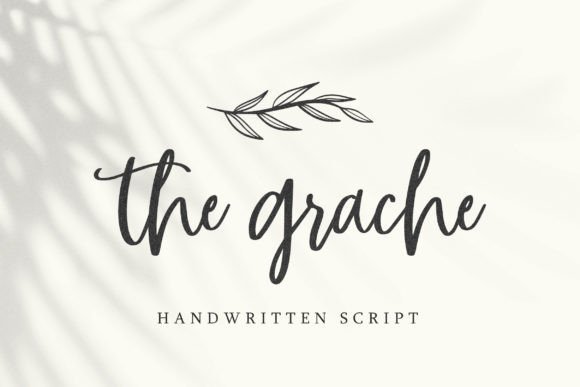
Introducing The Grache Font, the epitome of style and elegance in the world of script fonts! Created by the renowned Bellinghamtype, this font is a true masterpiece that is bound to captivate your senses and elevate your designs to new heights.
Are you looking for the perfect font to grace your wedding invitations? Look no further! The Grache Font is specifically designed to add an exquisite handwritten touch to your wedding stationery. Its delicate strokes and graceful curves will leave a lasting impression on your guests, setting the tone for your special day.
But that's not all - this font is a versatile gem that can be used in a myriad of design projects. Whether you're crafting thank you cards, inspirational quotes, or greeting cards, The Grache Font will infuse your creations with a sense of sophistication and charm. Its authentic handwritten appearance brings a personal touch to every word, making your message resonate with your audience on a deeper level.
Logos and business cards are vital components of any branding strategy, and The Grache Font is here to take your brand to a whole new level. With its timeless appeal, this font adds a touch of elegance that will make your brand stand out from the crowd. It exudes professionalism and creativity, instantly grabbing attention and leaving a lasting impression on potential clients.
The Grache Font is not just a font - it's an experience. Its smooth curves and flowing lines evoke a sense of emotion and beauty, creating a harmonious visual journey for anyone who lays eyes on it. It sparks inspiration and creativity, allowing you to unleash your imagination and bring your design visions to life.
Don't settle for ordinary fonts when you can have extraordinary. The Grache Font is a must-have for designers and creatives who seek to make a statement and leave a lasting impression. Its versatility, elegance, and timeless appeal make it the ideal choice for any project that demands excellence.